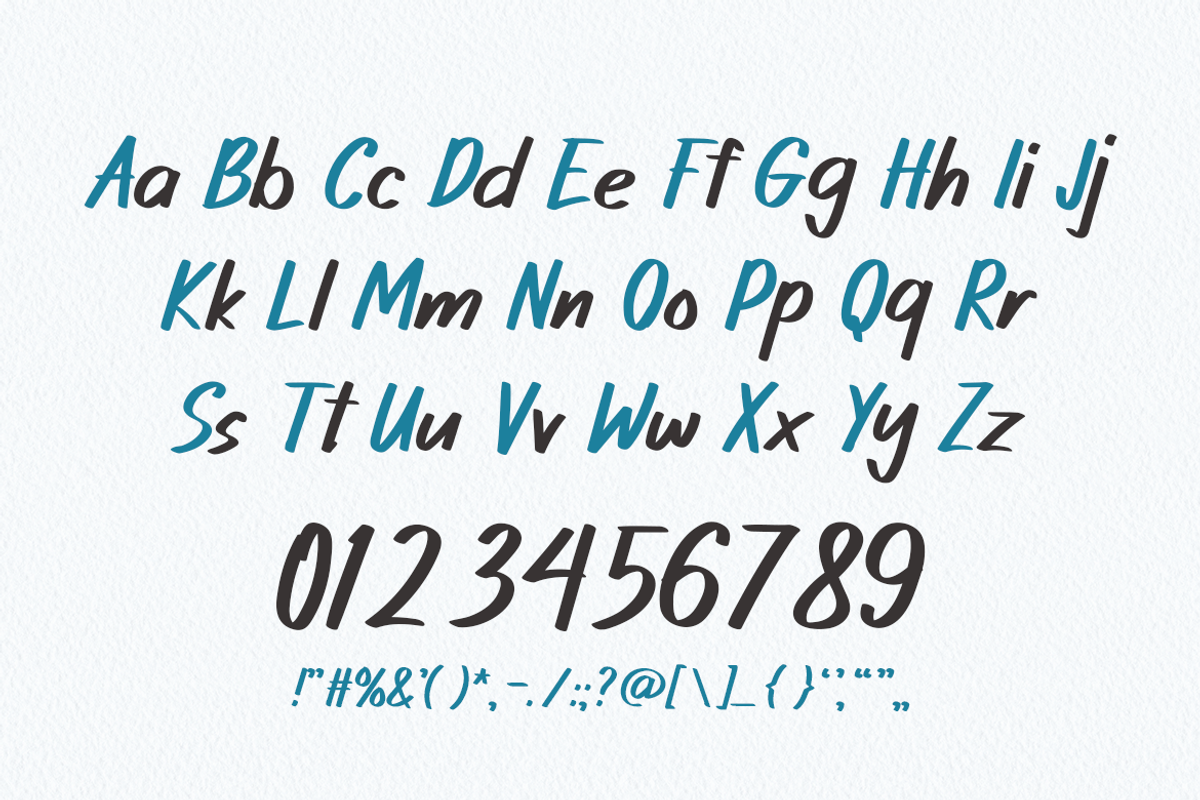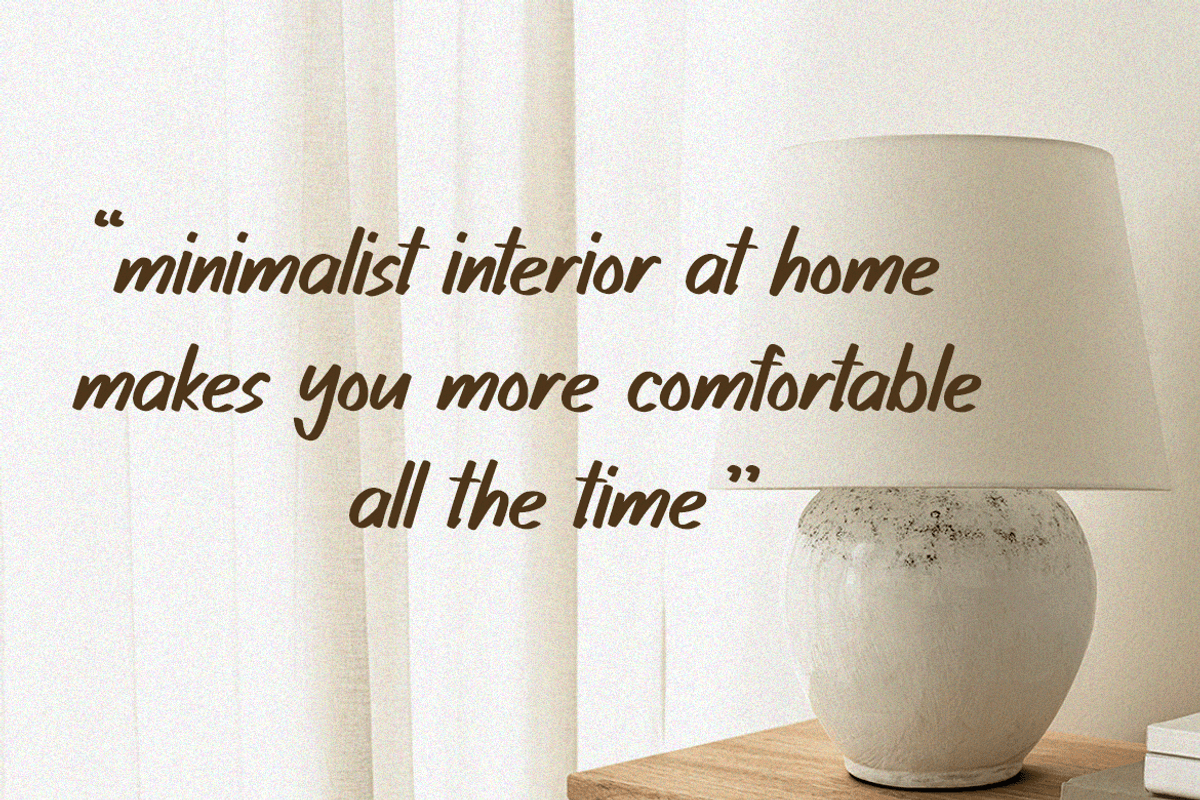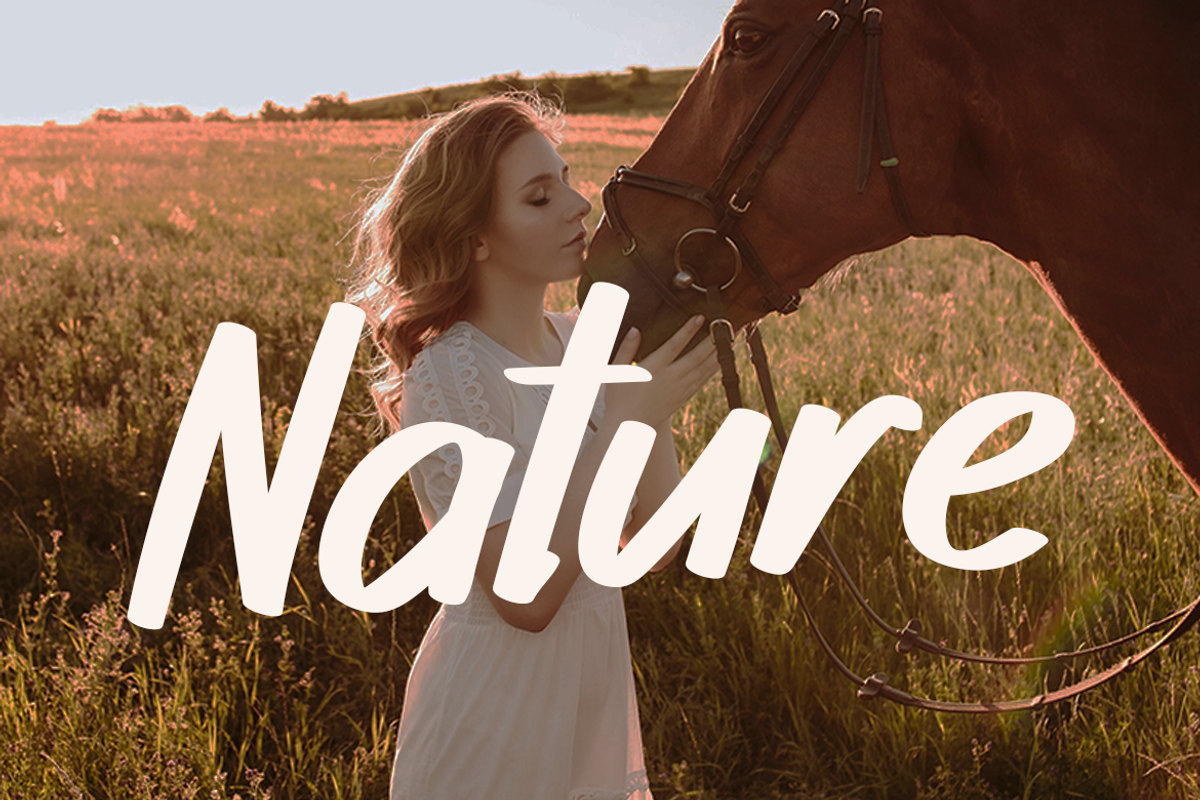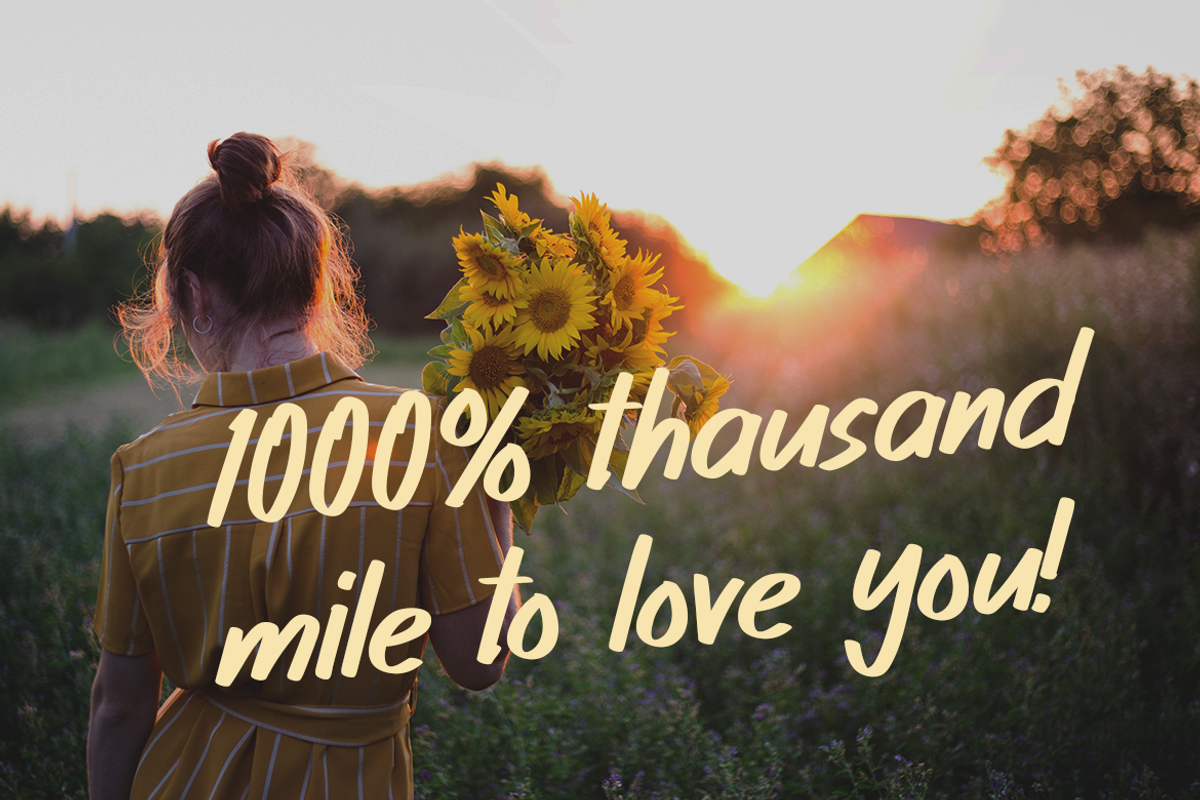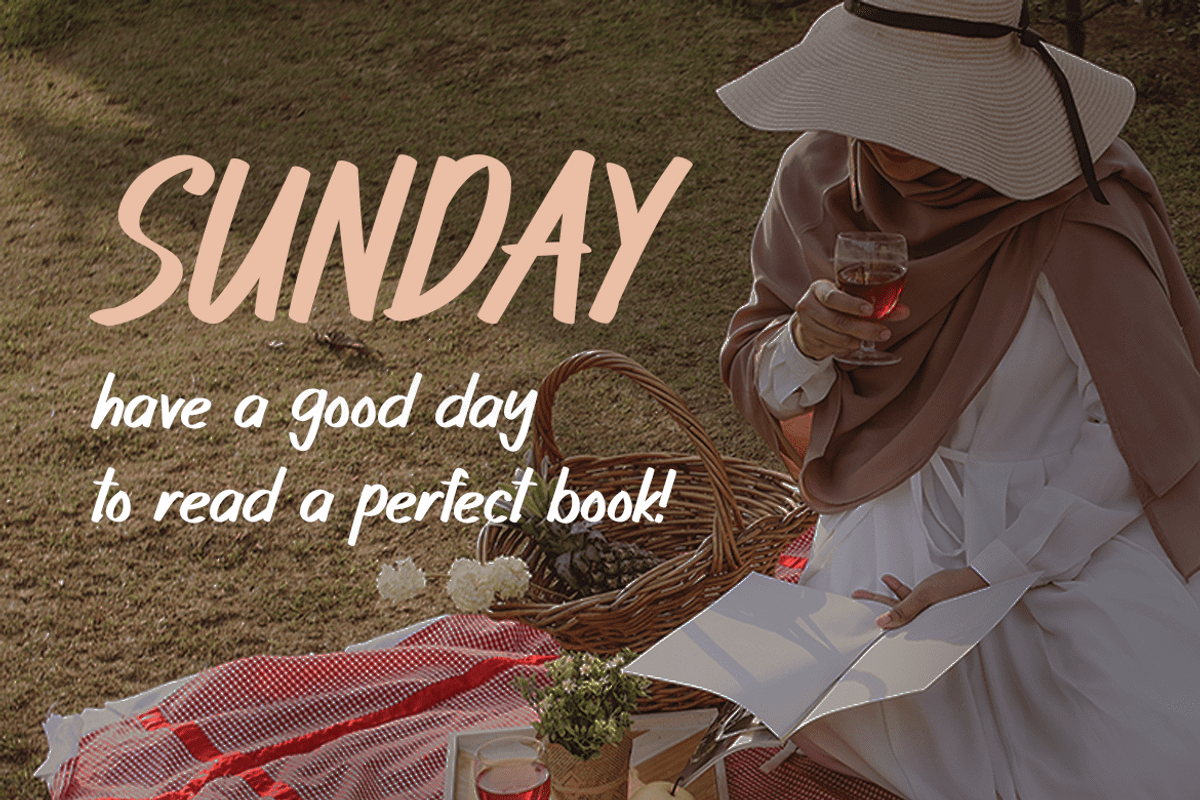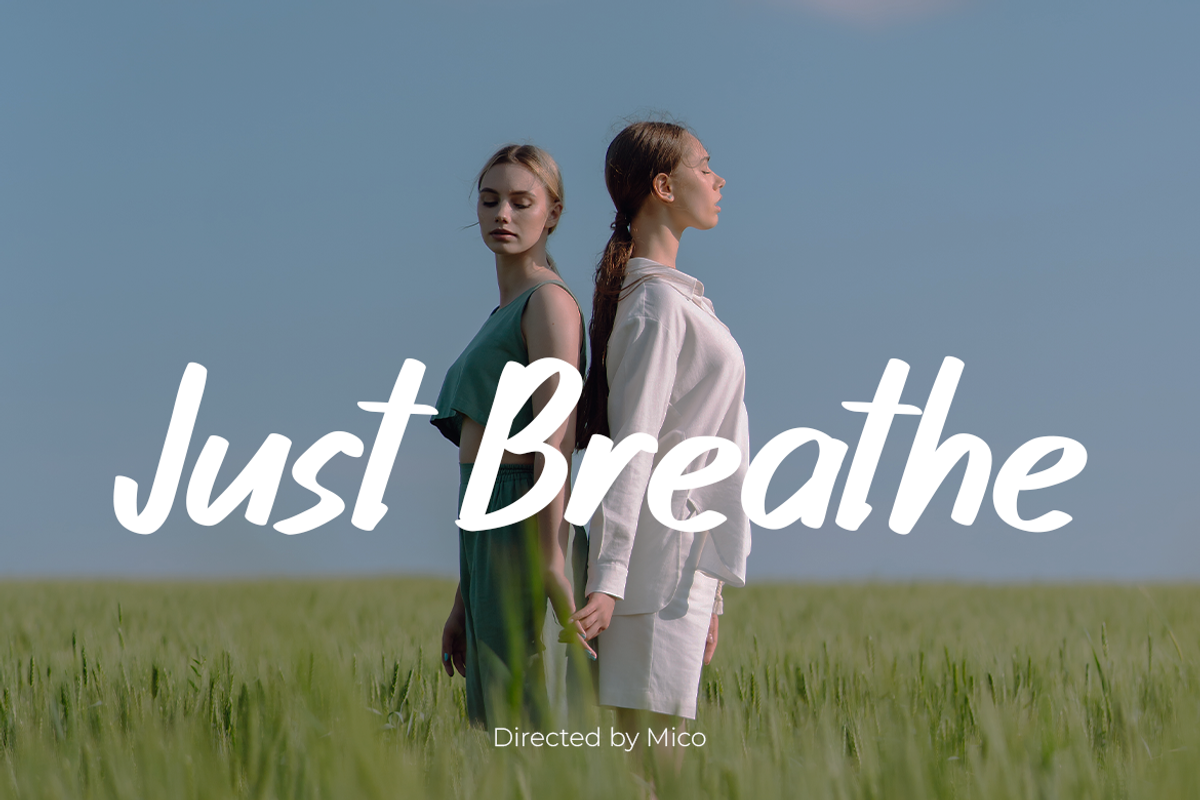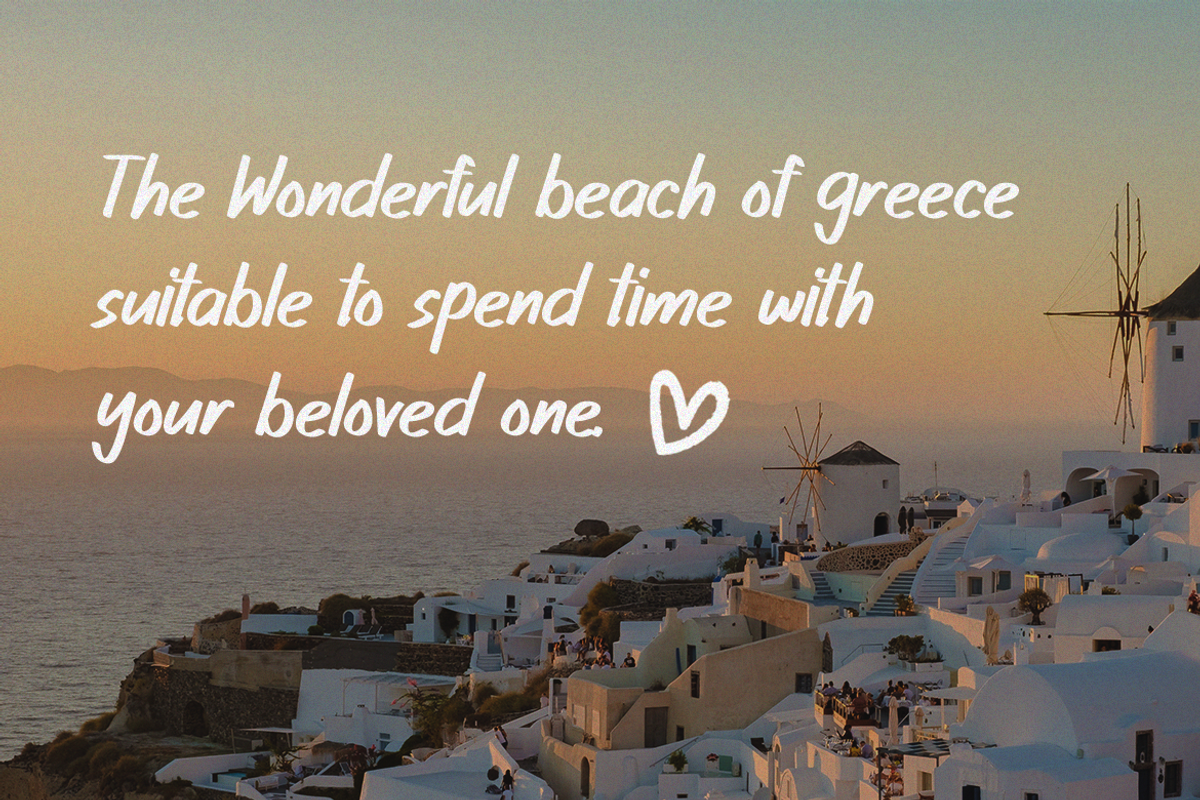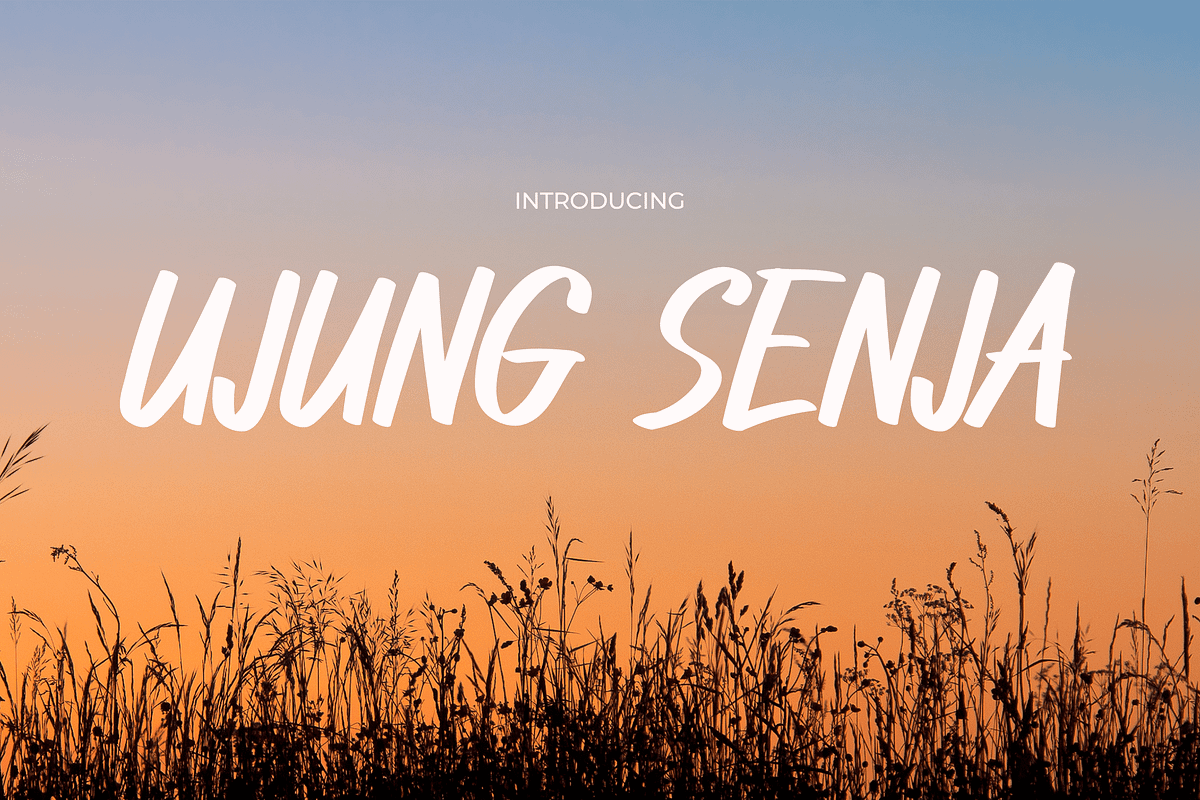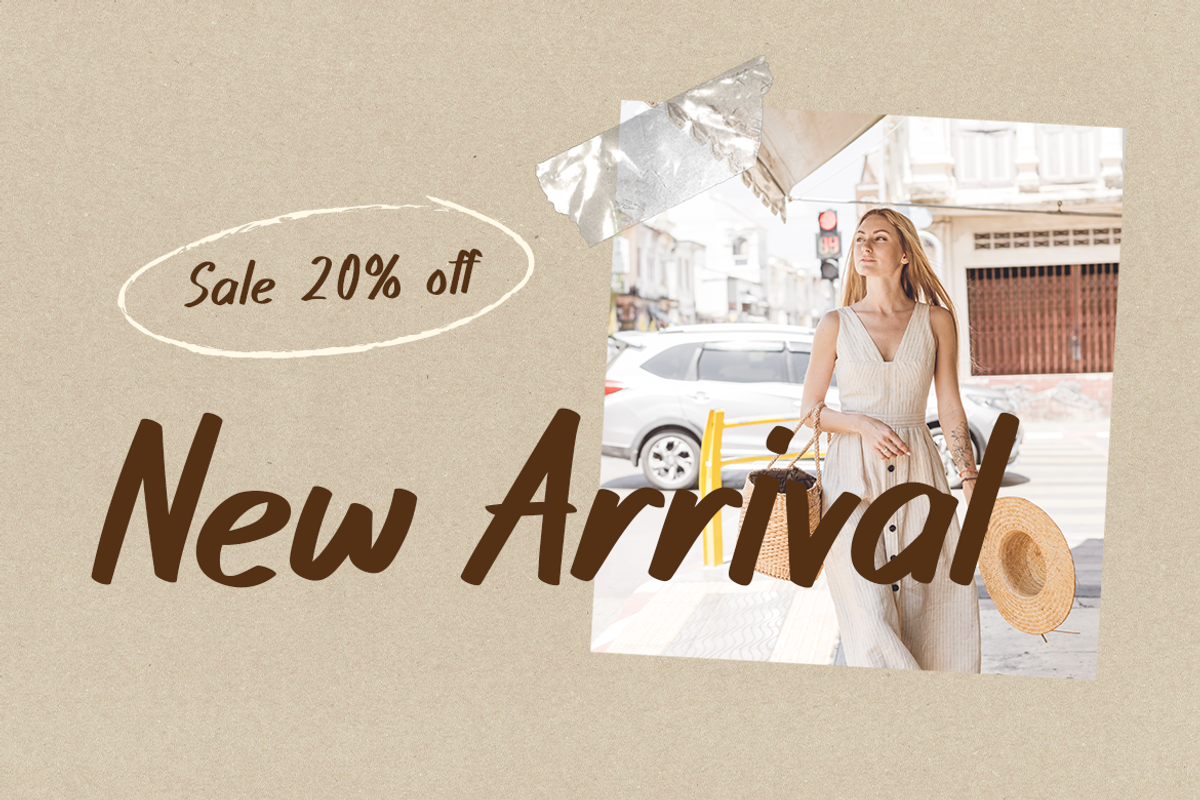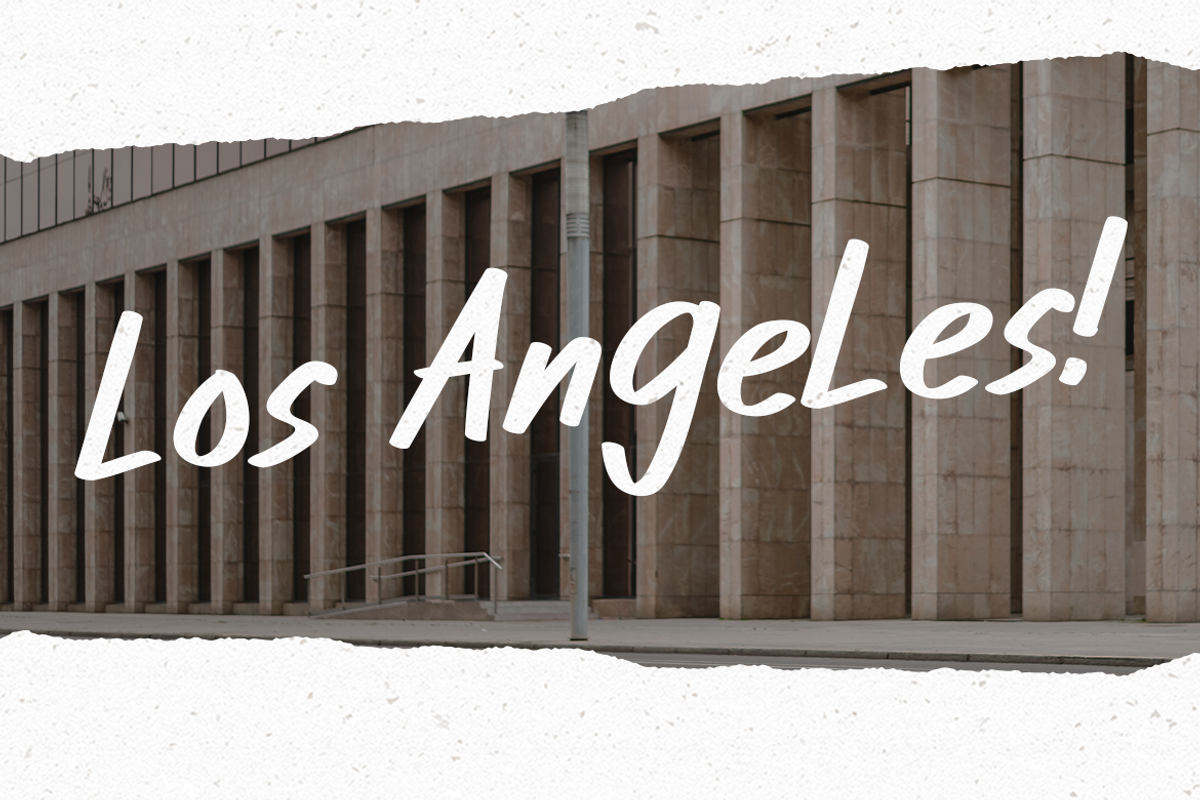
Ujung Senja
UJUNG SENJA – Modern Sans Serif Font
Say hello to Ujung Senja – the font that effortlessly combines modern flair with a sleek sans-serif display style! Designed for versatility, Ujung Senja is the perfect choice for a wide array of creative projects. From making a bold statement in the world of fashion to creating memorable logos, adding a touch of sophistication to quotes, invitations, posters, greeting cards, packaging, branding, cover albums, events, or postcards, this font is your ultimate companion for achieving a clean and stylish aesthetic that goes beyond expectations.